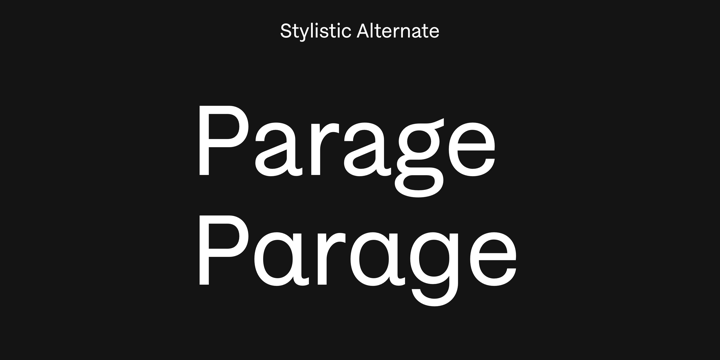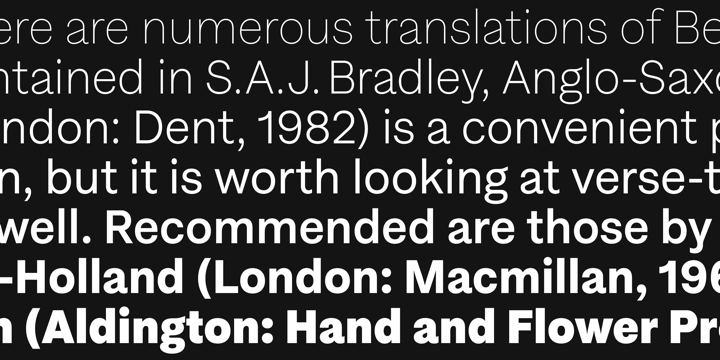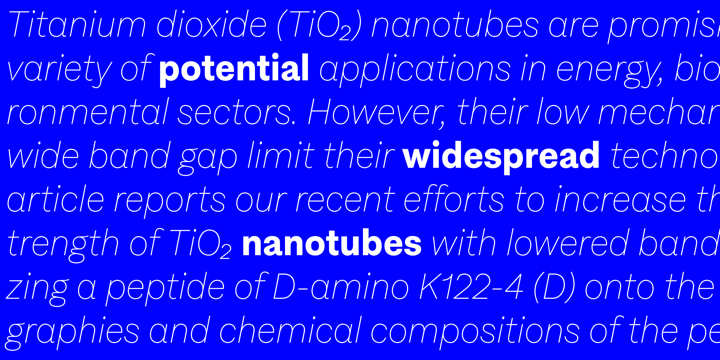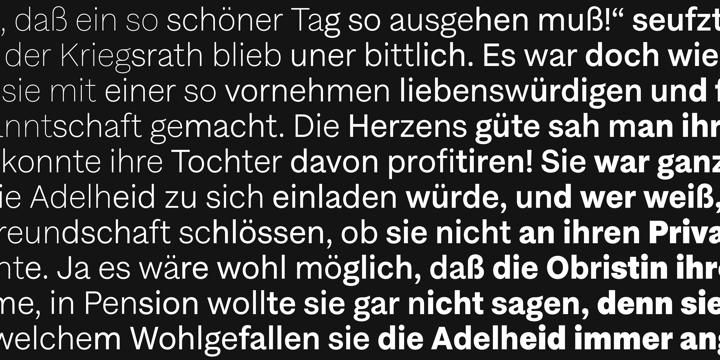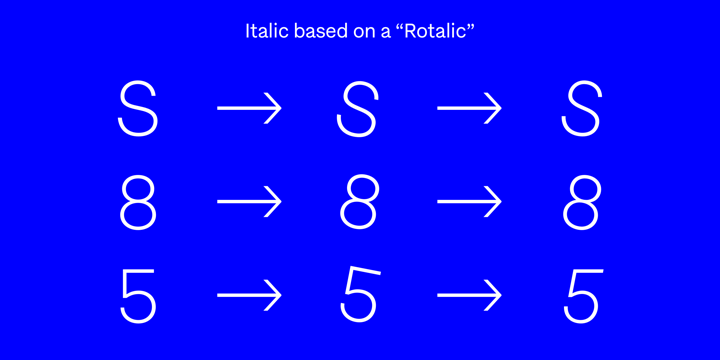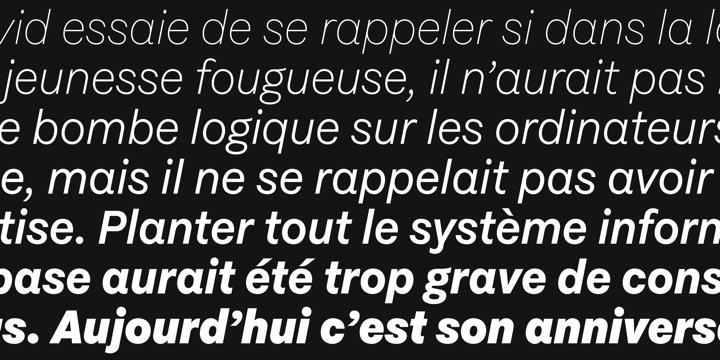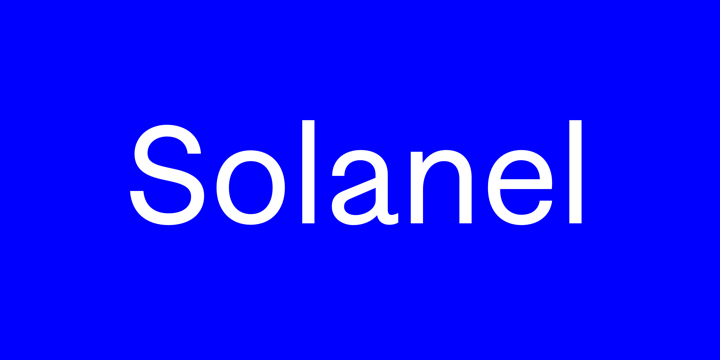
Solanel Font Family
Solanel is a neo-grotesque with flawless curves. This is a low contrasted and smooth sans serif with subtle and effortless details. One of the main particularity is its italic, which is not a rendition of a slanted roman, but a mix of a rotated and slanted version, which give a “rotalic” feel. The large range of style, from UltraThin to Black help to give flexibility to this family.